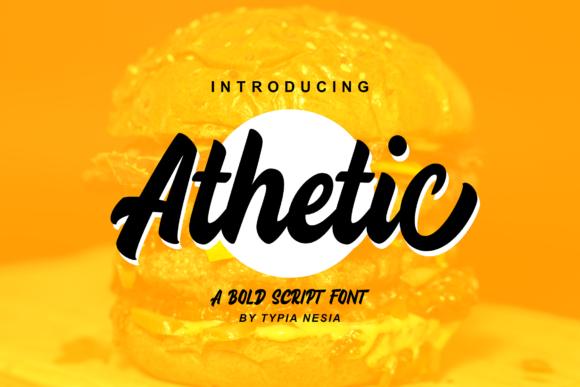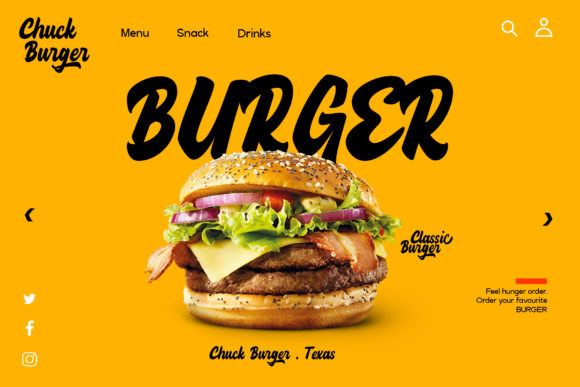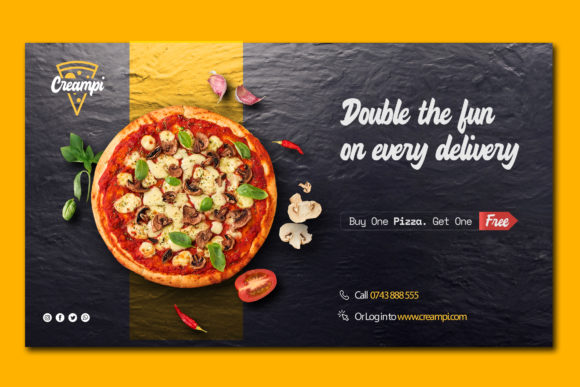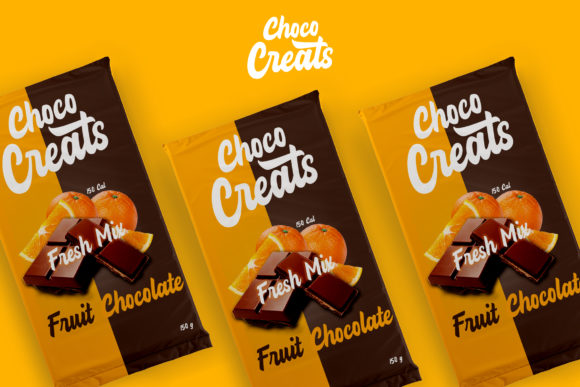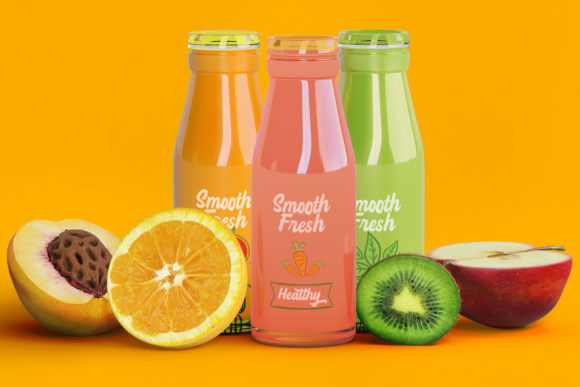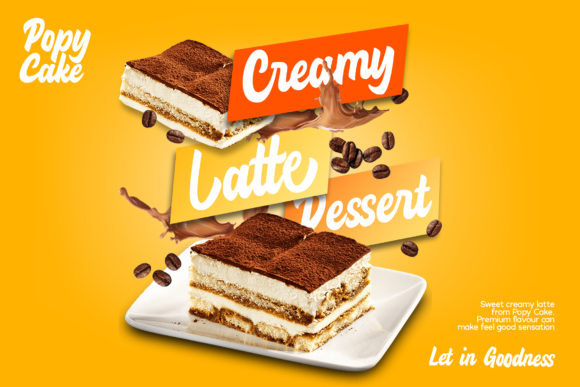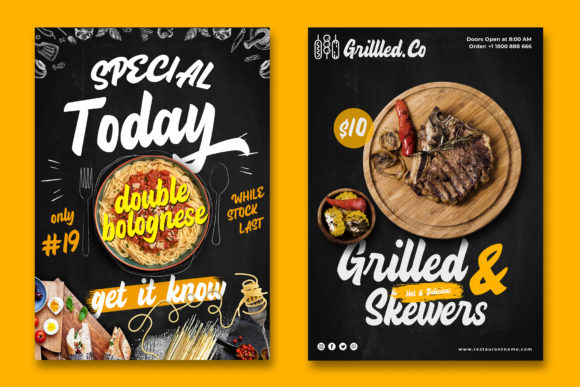
Athetic Font
About Athetic Font
Athetic is a bold script font, carefully handcrafted to become a true favorite. Its casual charm makes it appear wonderfully down-to-earth, readable and, ultimately, incredibly versatile.